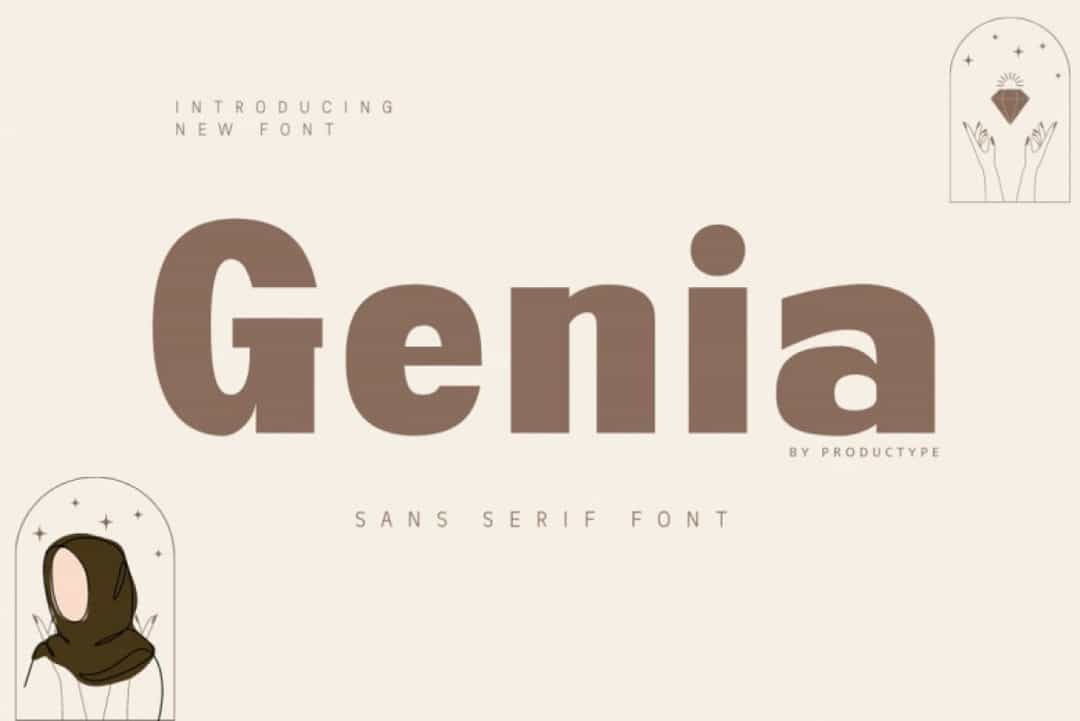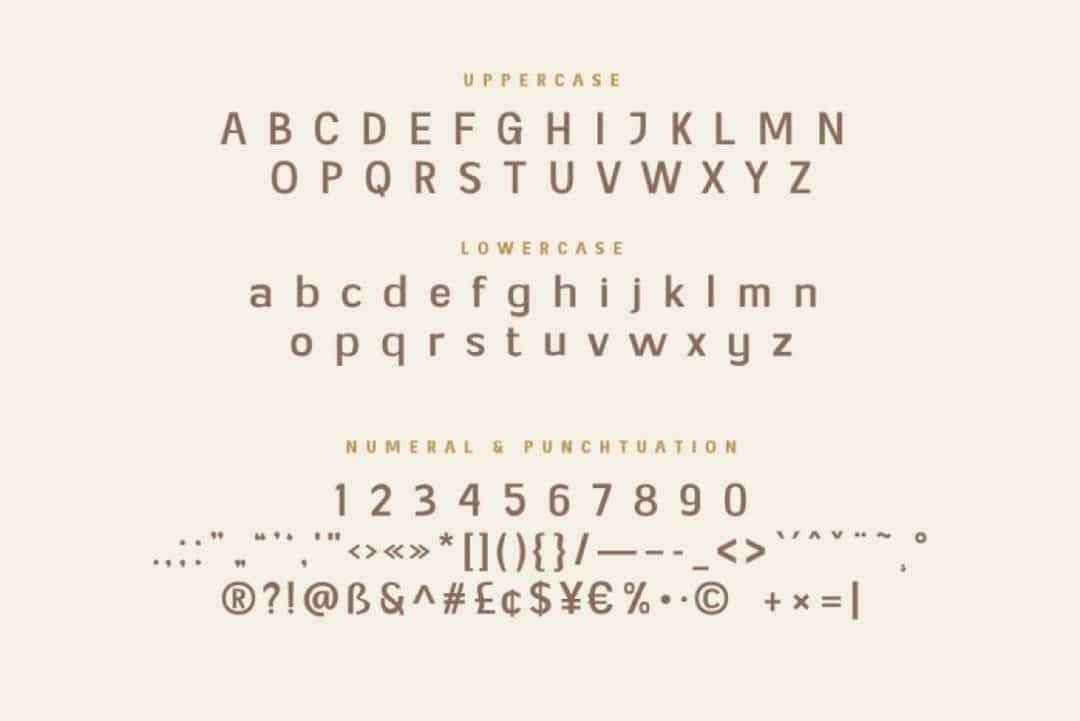
Genia Sans Serif font is charming and beautiful, boasting uncompromising letters that feature controlled letters with modern edge. Every typeface within the family can stand on its own or work beautifully within other typefaces; its sharp lines balance well against its soft curves for striking designs. Genia Sans Serif font is available in 16 families that make your projects alluringly beautiful.